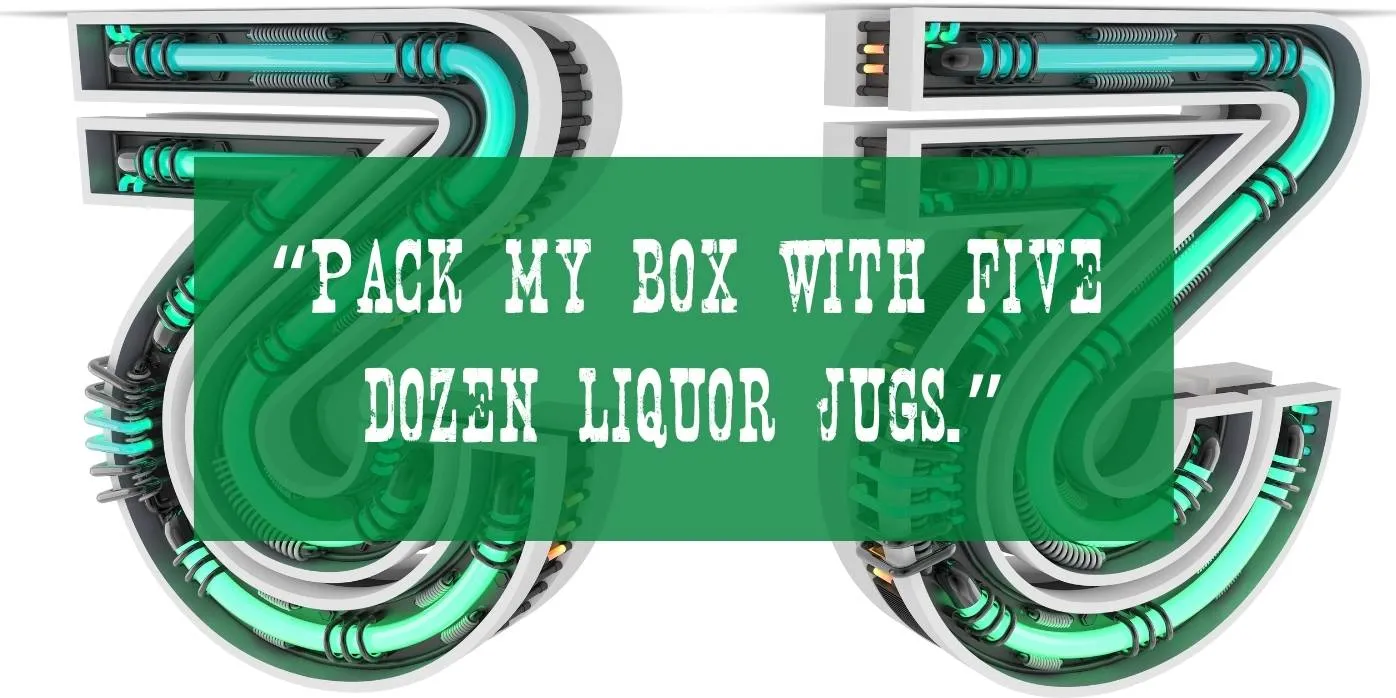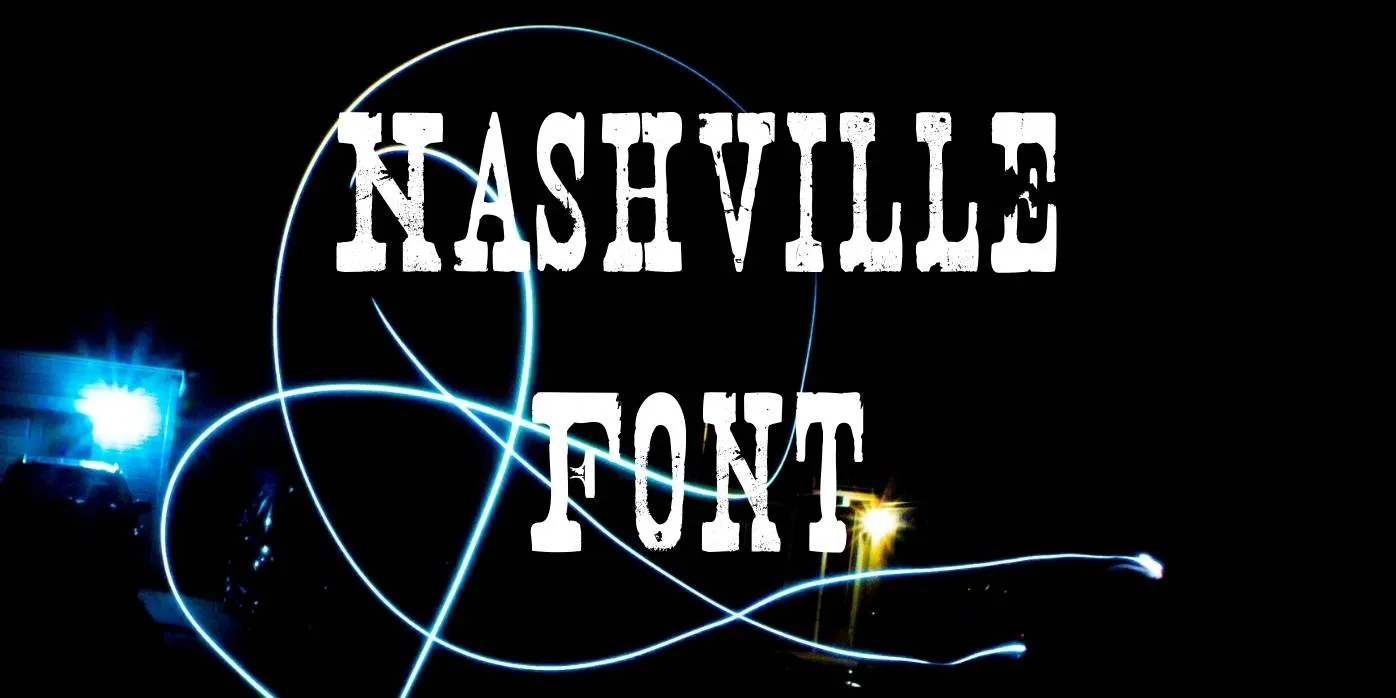
Nashville Font
Nashville Font is a beautiful font that was developed by Matt Petty. This typeface belongs to the Display typeface. It is perfect for logos, and much more. It is inspired by the beautiful city of Nashville and its art deco style.
This font has a very vintage feel to it and will make your designs look amazing. It is well specified by the CSS. The designer wanted to create a font that reflected that beauty. The result is a stunning font that has a very vintage feel to it.
This staggering font comes in 26 popular and strong styles and weights. Its copy and paste are very classic for different designs. Toy story Font is alternative to this typeface. This typeface is soo much famous due to its Bold textures which is why it is used by several brands.
Some of the popular brands are Coca-Cola, Pepsi, and Wrangler. This classic typeface will provide the best and flawless results.